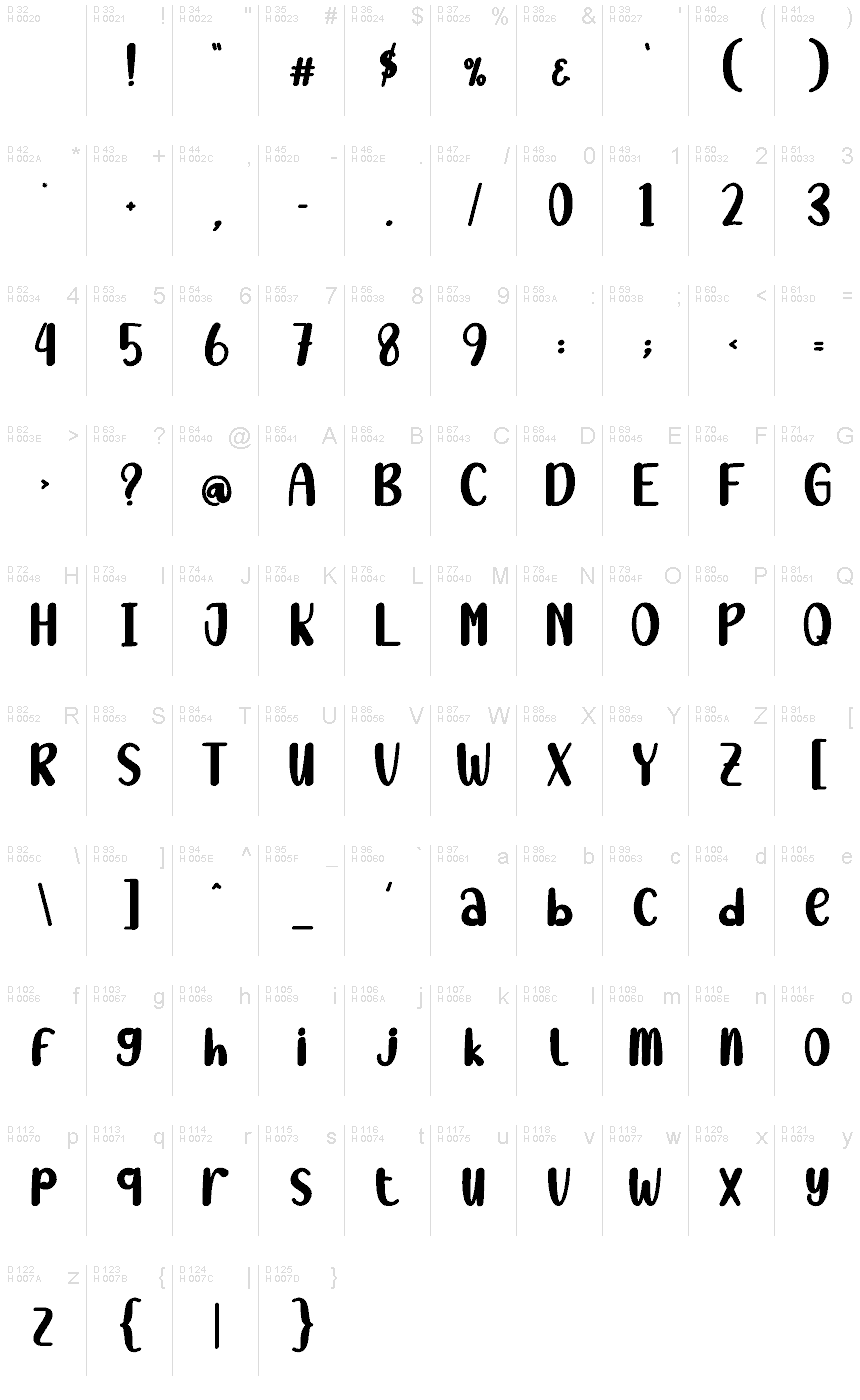
Kitty Gray
Kitty Gray font by Scratchones is a brush bold font with rounded playful strokes. The modern, yet retro look, makes this typeface casual, approachable, and cartoonish with whimsical traits. Most character corners are beveled for a smooth visual appearance and perfect for friendly reading.